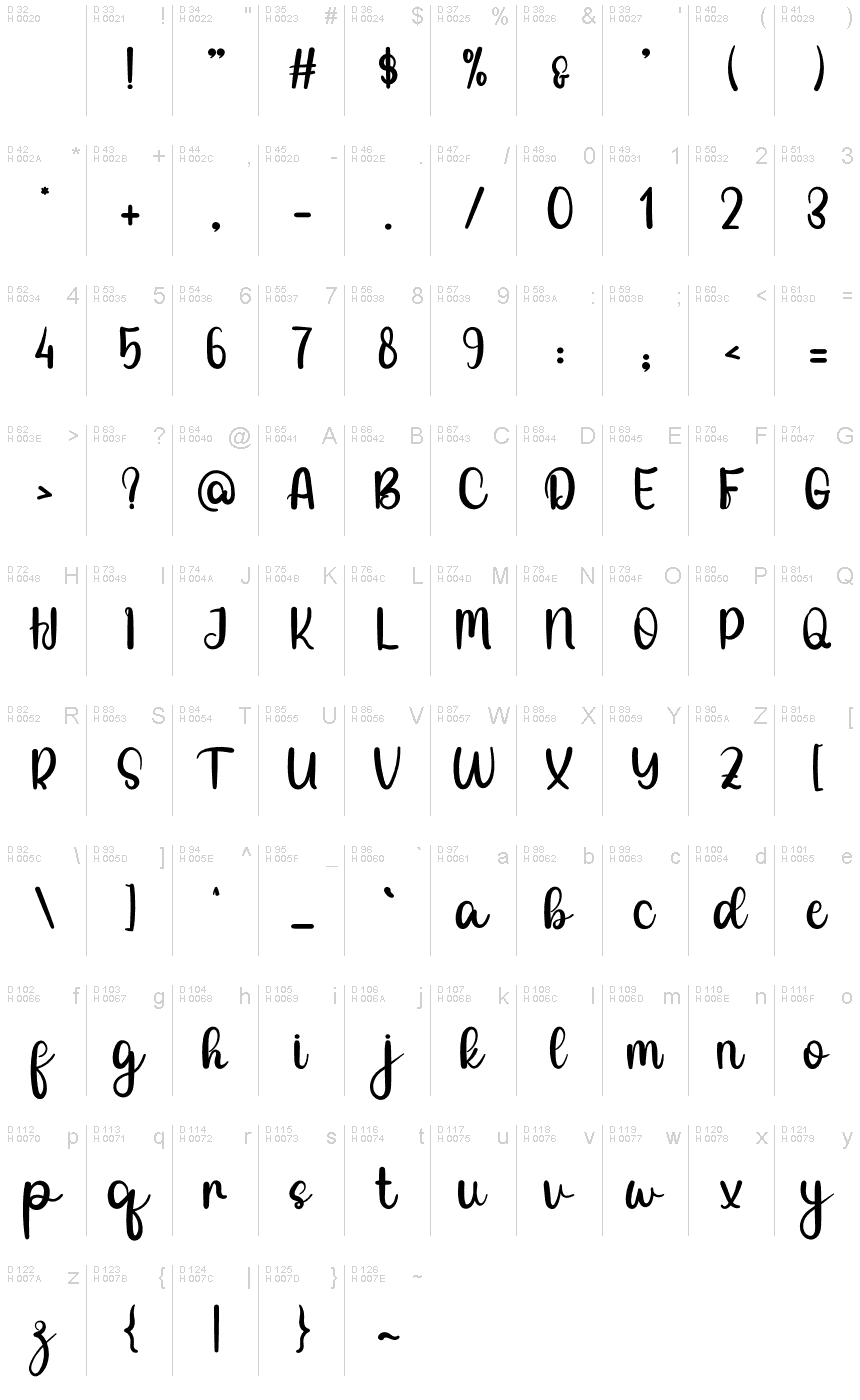
Holla Holly
Holla Holly, designed by Inermedia Studio, is a handwritten font perfect for creating unique and authentic designs. It's ideal for crafting logos, posters, banners and more. With its stylish yet friendly look, Holla Holly is the perfect choice for any creative project.